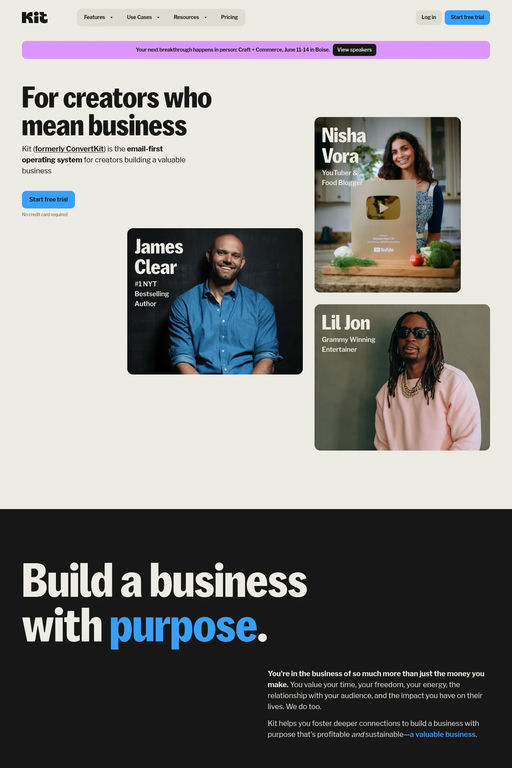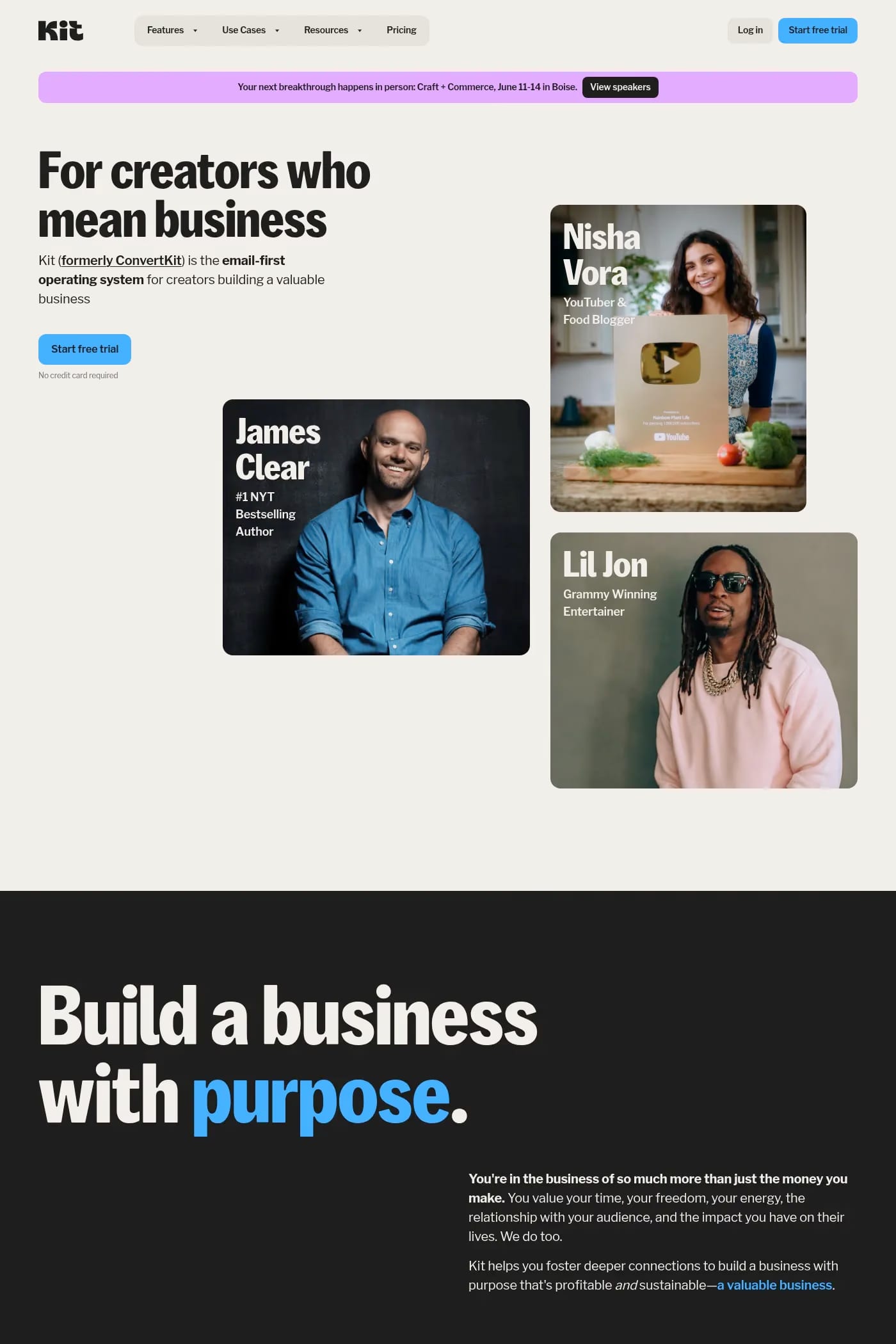
Kit Sans is a sans-serif typeface from Koto.
We partnered with Koto to create Kit Sans, a typeface that smoothly embodies Kit brand language within its contours, while simultaneously enhancing its performance and legibility. It is a sans serif influenced by Gothic style, mainly aimed at headline sizes.